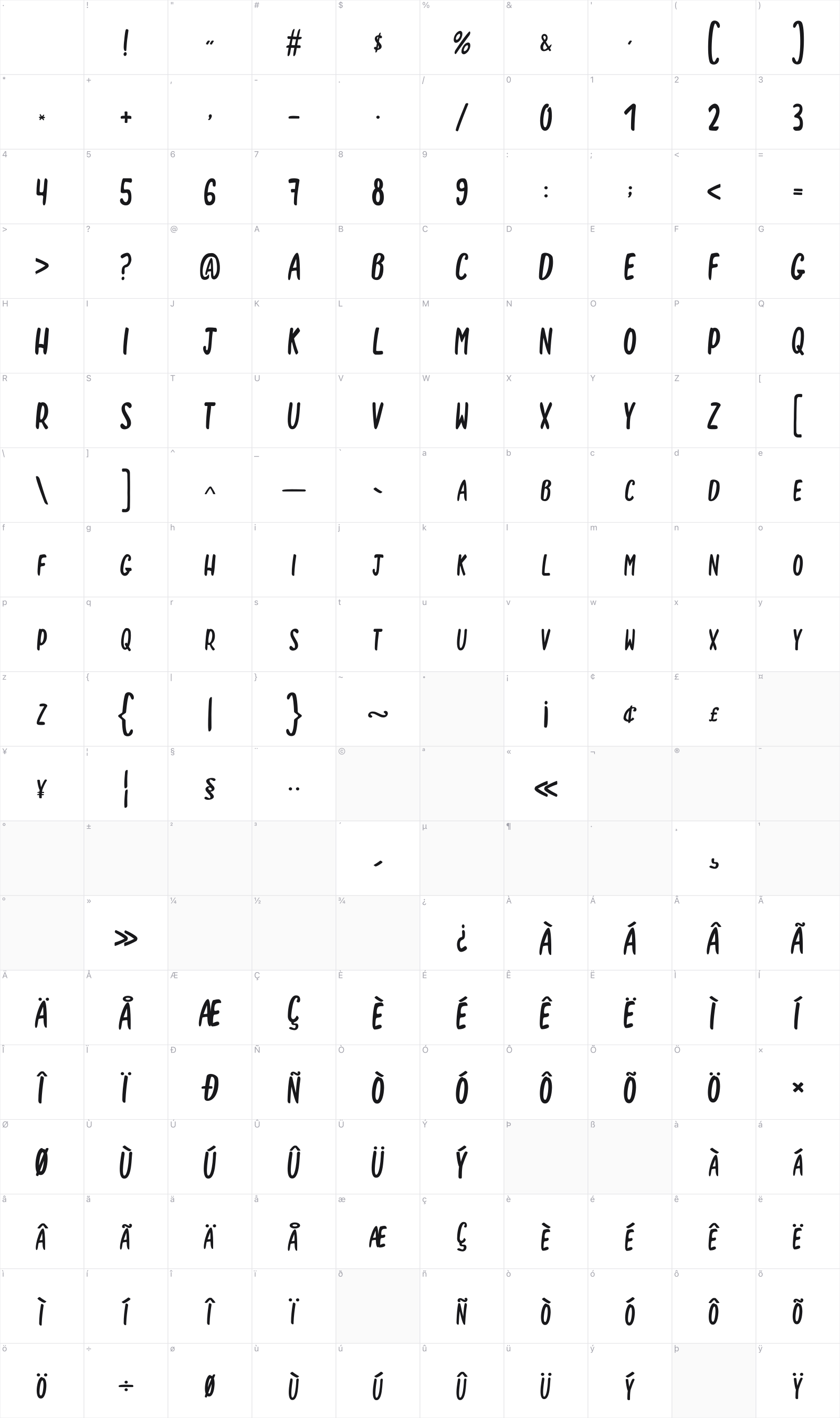
Double Deagle
by La Matrice | Maël Keïta Valère
Double Deagle is a bold, condensed hand-drawn display font with thick strokes and a lively marker-pen energy. The slightly irregular edges and rounded terminals keep it feeling spontaneous rather than rigid, lending it a comic-book personality without veering into parody. It hits hard at large sizes for posters, labels, and anything that needs a punchy, informal voice.